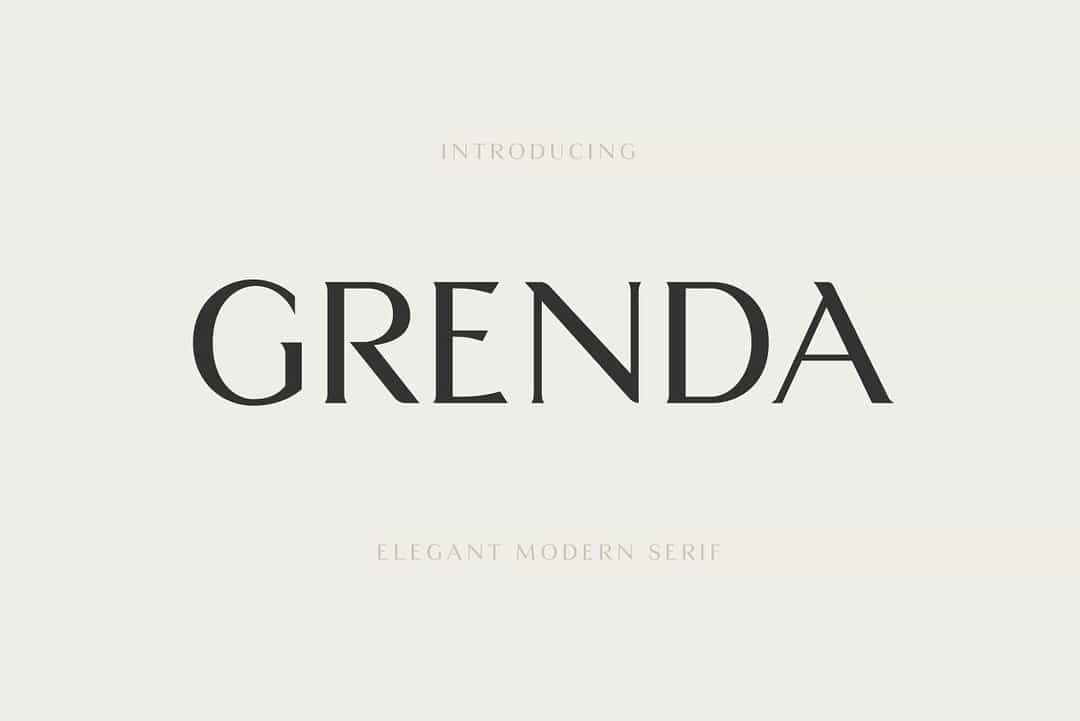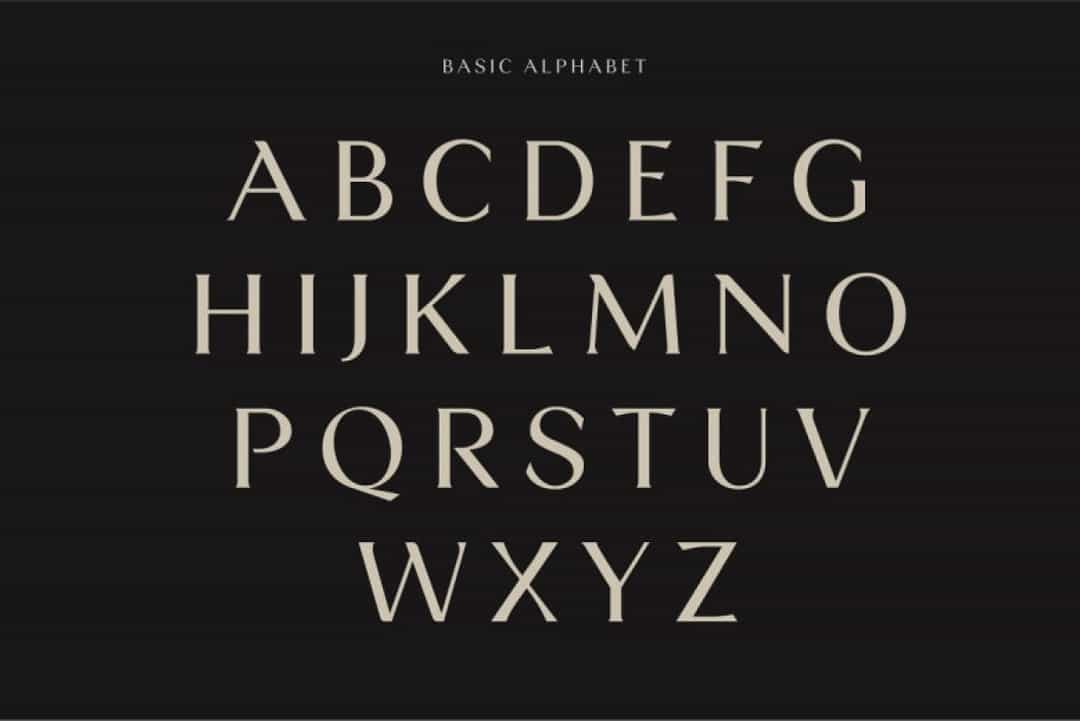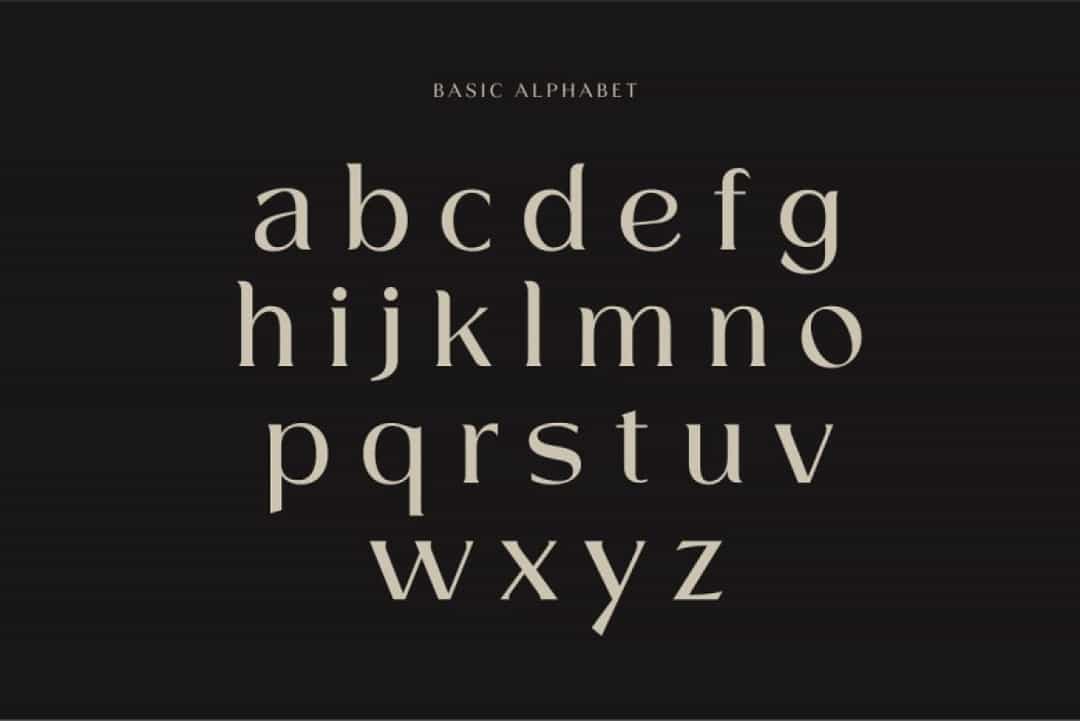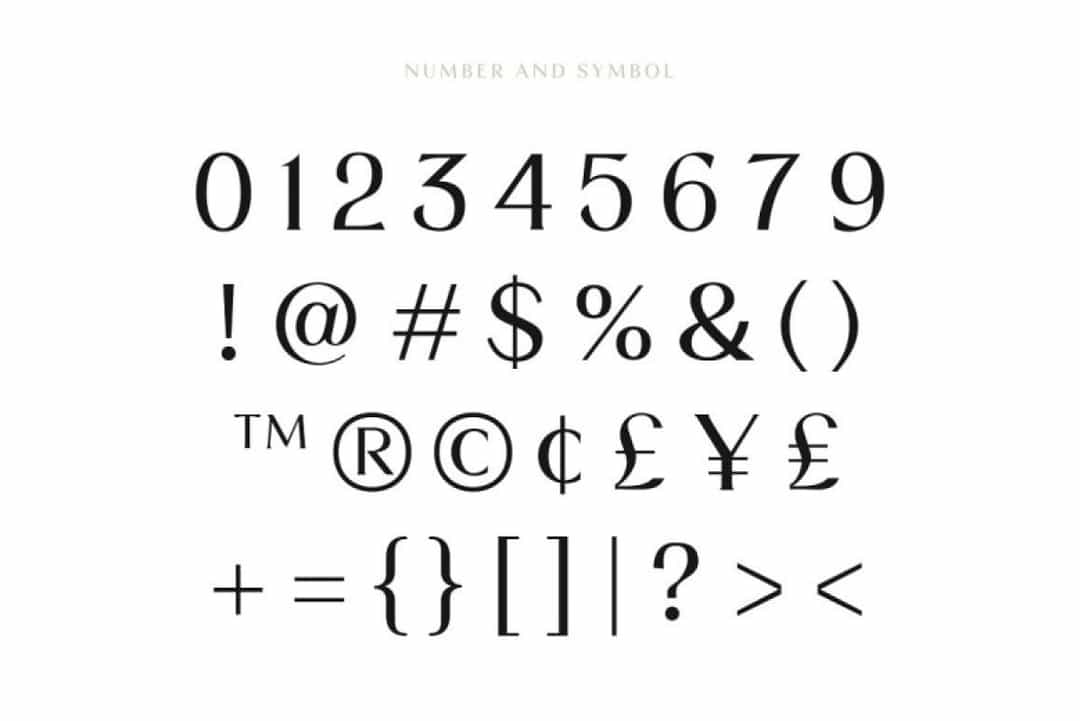
Grenda is an elegant serif typeface designed by Arabic and European art, creating something contemporary yet beautiful in appearance. Perfect for creators looking to craft something elegant yet contemporary.